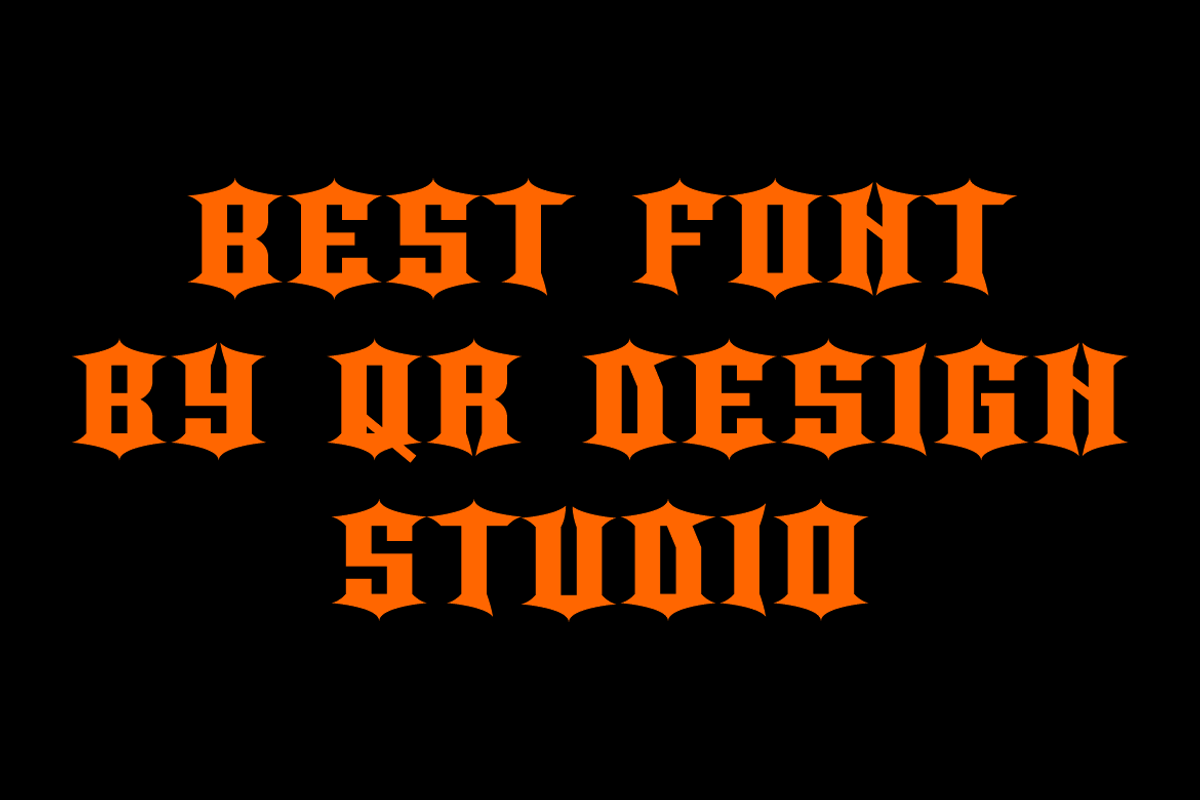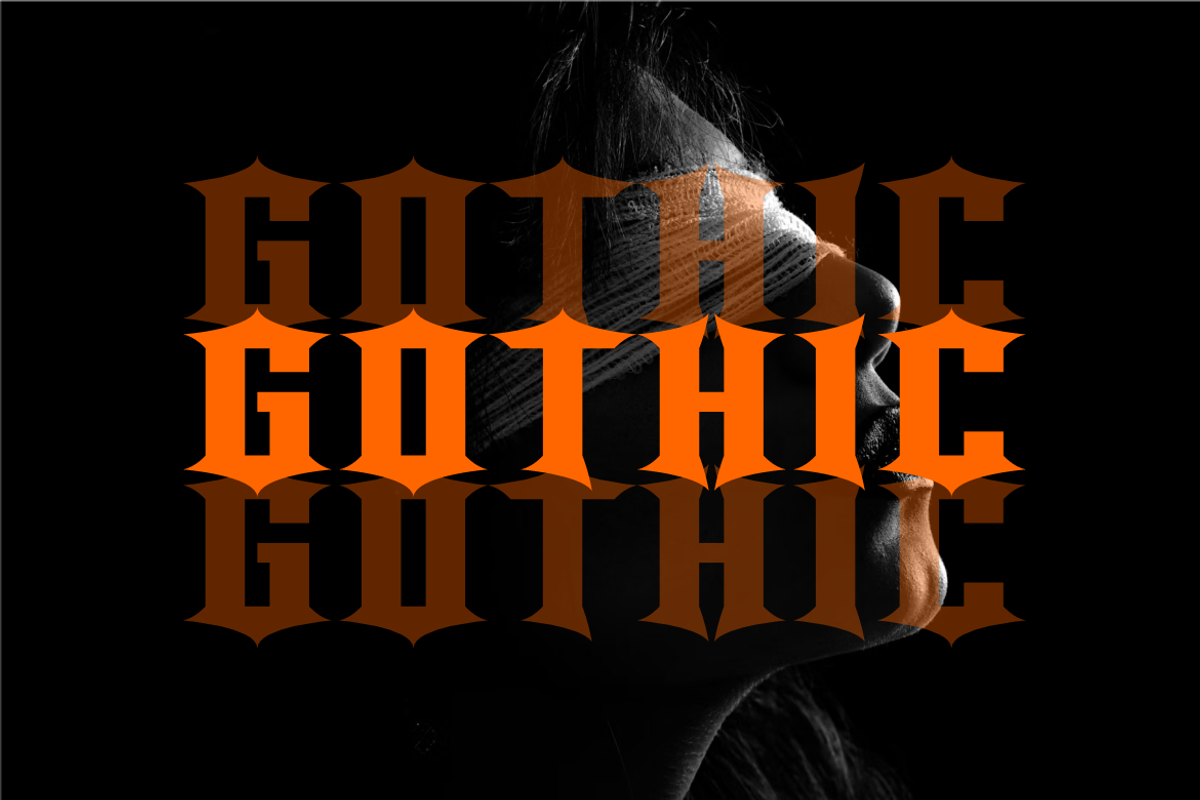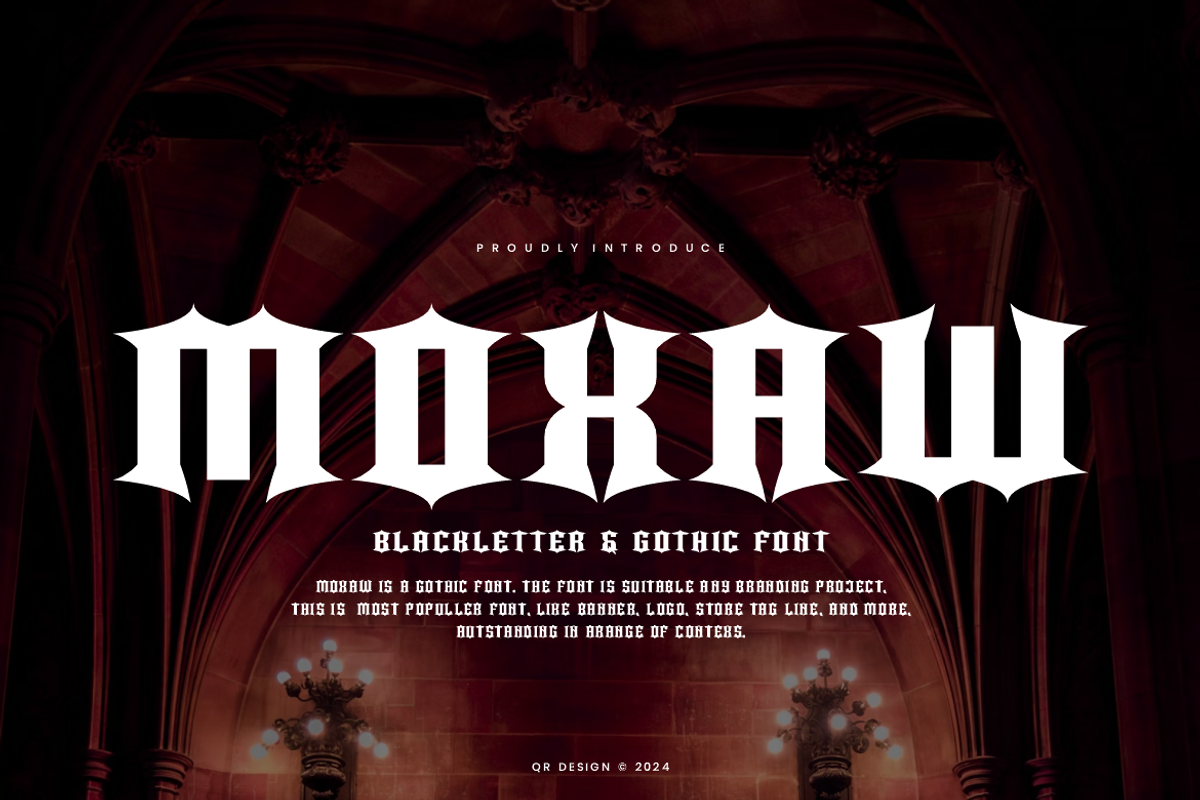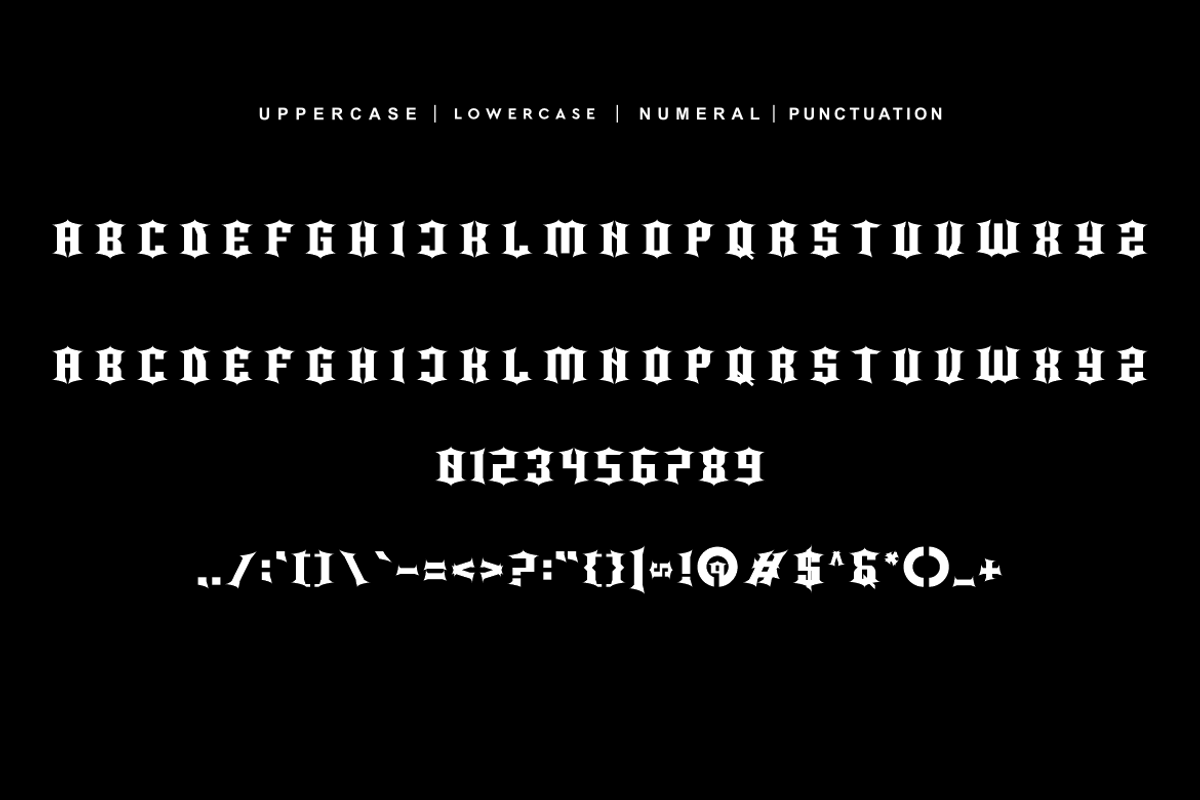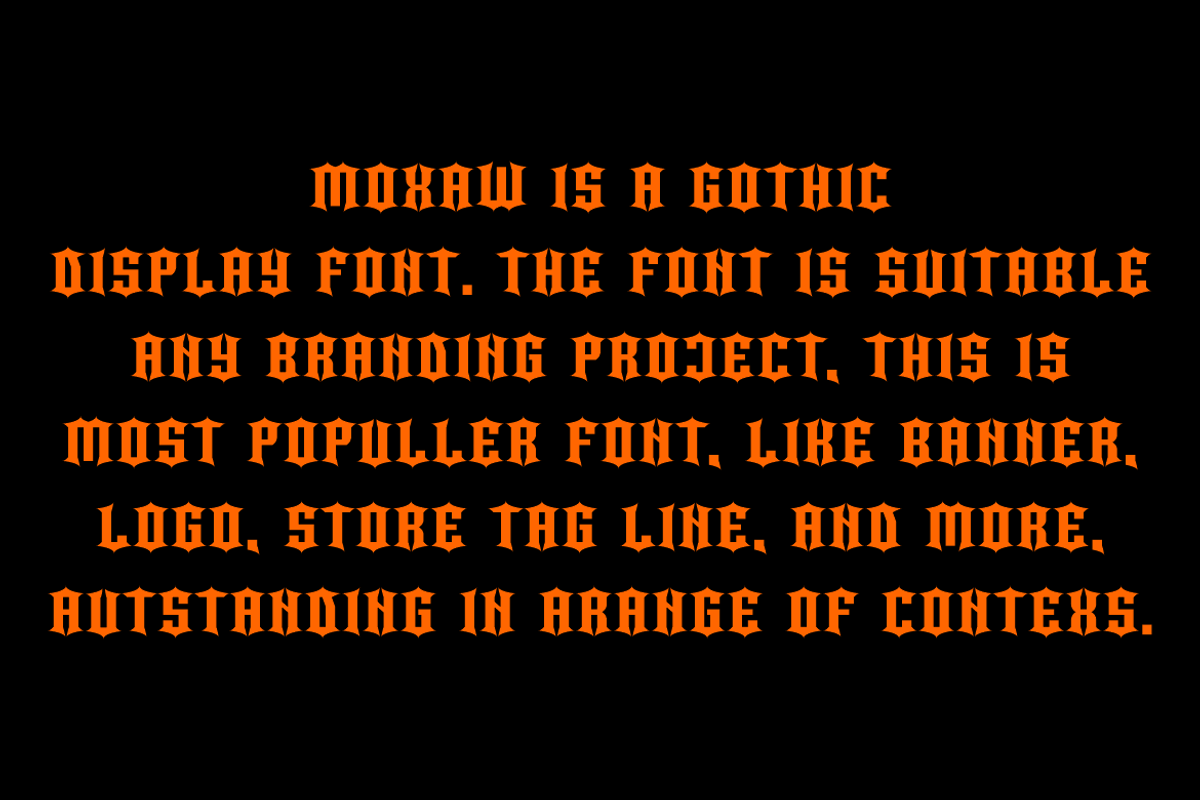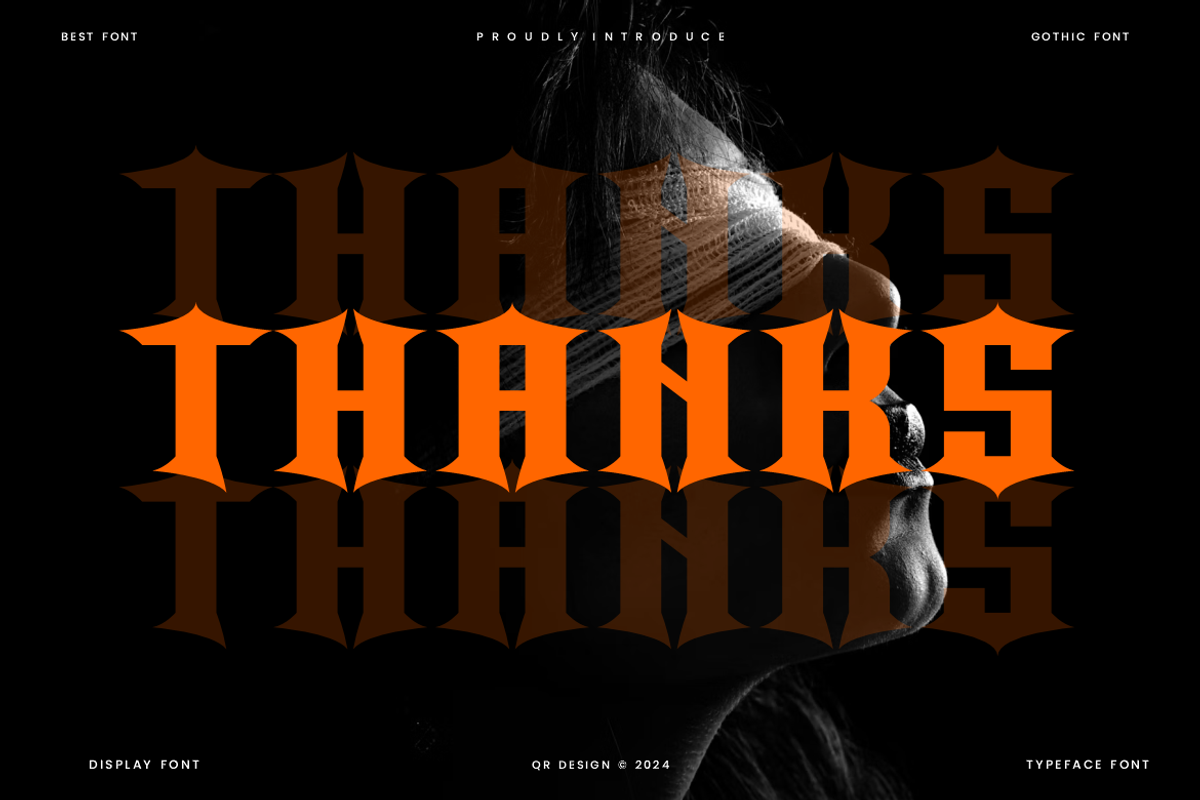
Moxaw - Gothic Font
Moxaw Font is a bold and authentic display font. The font is suitable for any branding project like poster, logo, sport, and many more. Outstanding in a wide range of contexts.